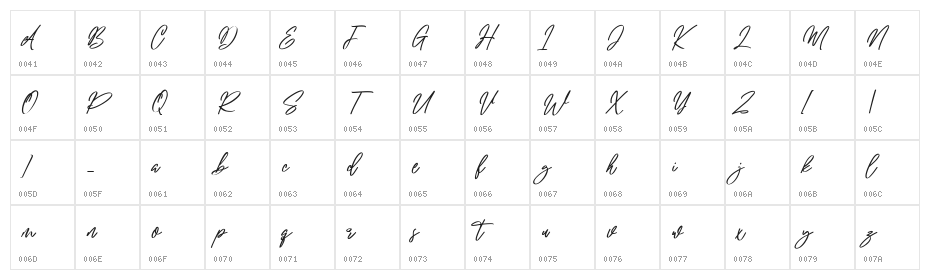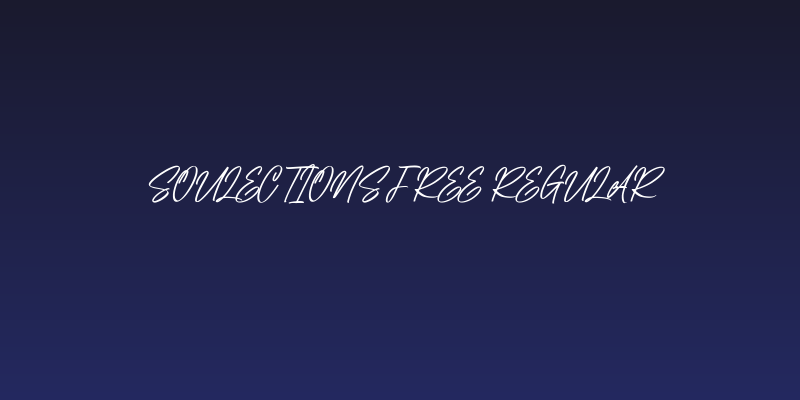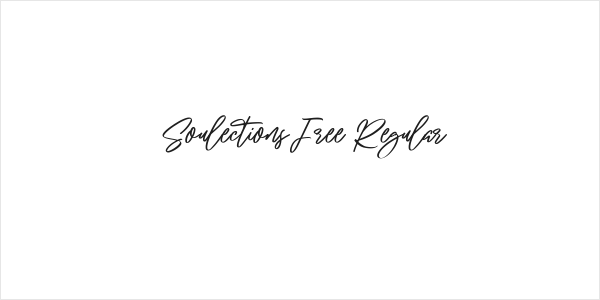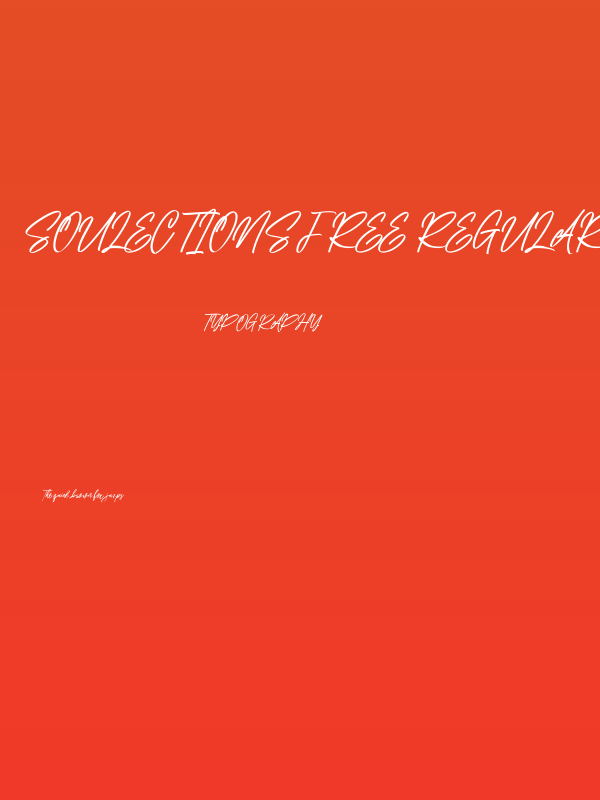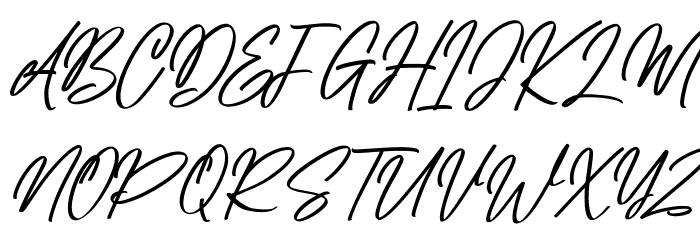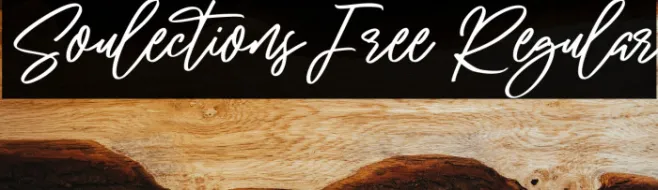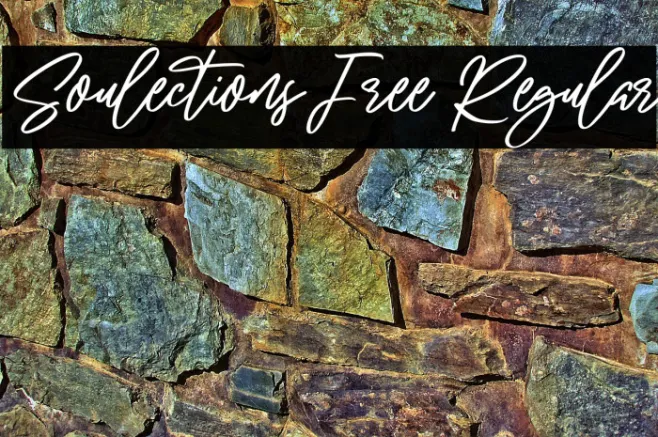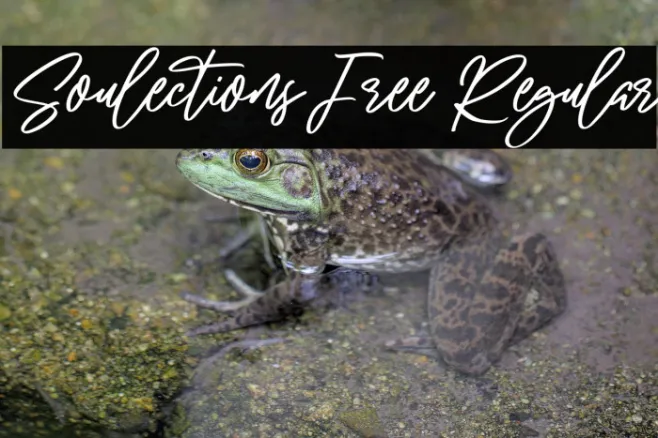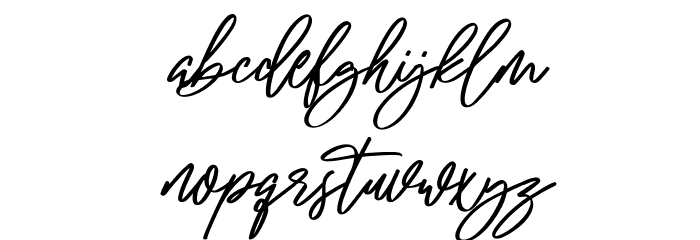
Soulections Free Regular Font
Soulections Free Regular Description
This font features a flowing, cursive script style with elegant, sweeping strokes. The characters are interconnected, creating a seamless and fluid appearance. The uppercase letters are bold and prominent, while the lowercase letters maintain a consistent flow, enhancing readability. The design is reminiscent of traditional calligraphy, with a modern twist that adds a contemporary flair. The font's overall aesthetic is both sophisticated and approachable, making it suitable for a variety of design applications. Its dynamic and expressive nature lends itself well to creative projects that require a personal touch.